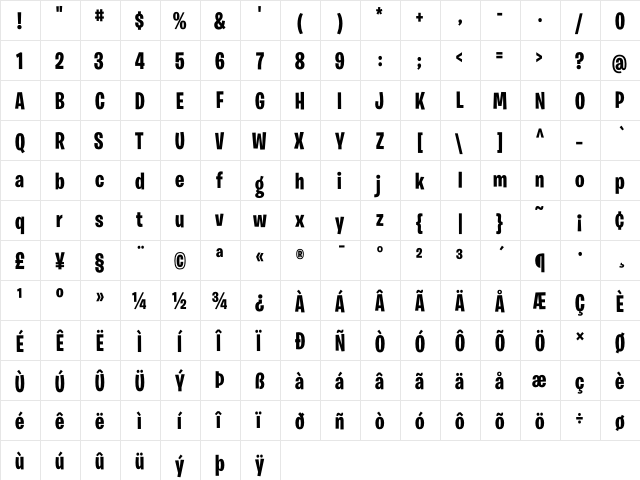
Burbank Big Condensed Bold Font Preview
| Foundry | House Industries |
| Designer | Tal Leming |
Design Context for Burbank Big Condensed Typeface
Burbank Big Condensed takes a measured approach to typography — its balanced proportions and neutral character make it a reliable workhorse for both digital and print work. The heavy weight commands attention and anchors typographic hierarchies. The condensed width makes it efficient for tight spaces without sacrificing legibility.